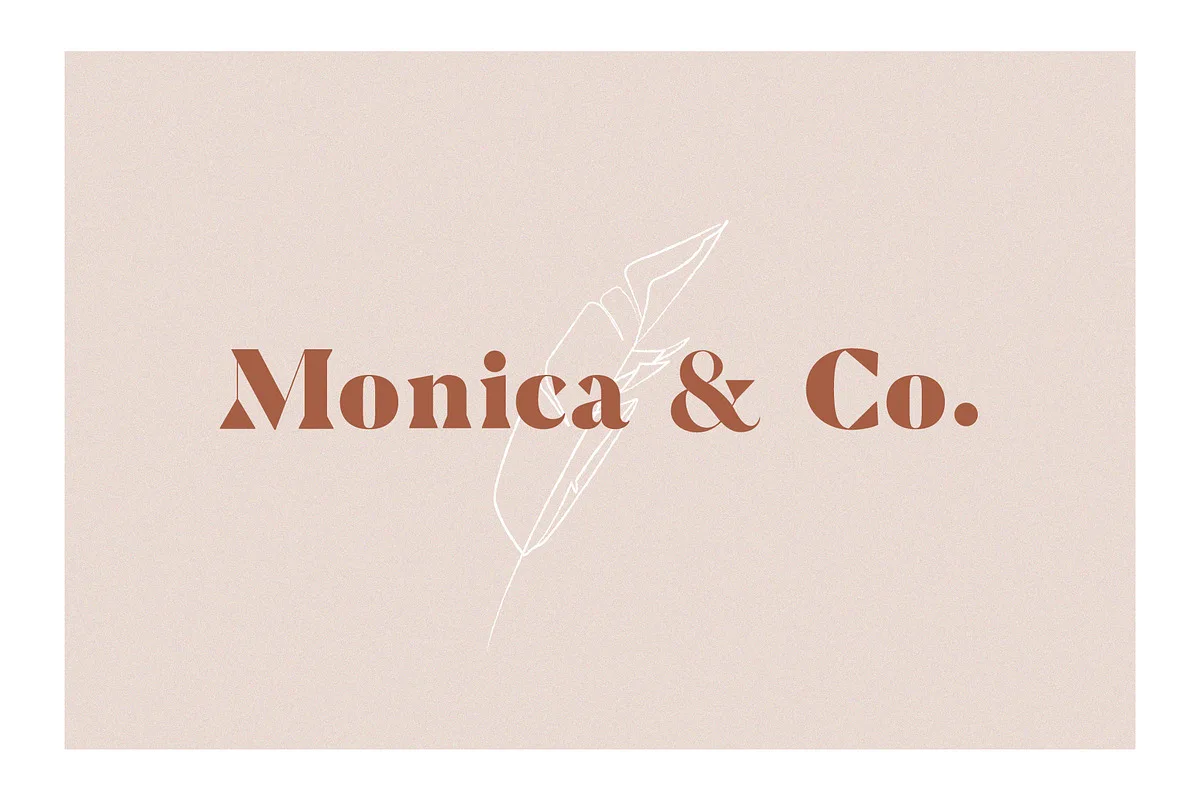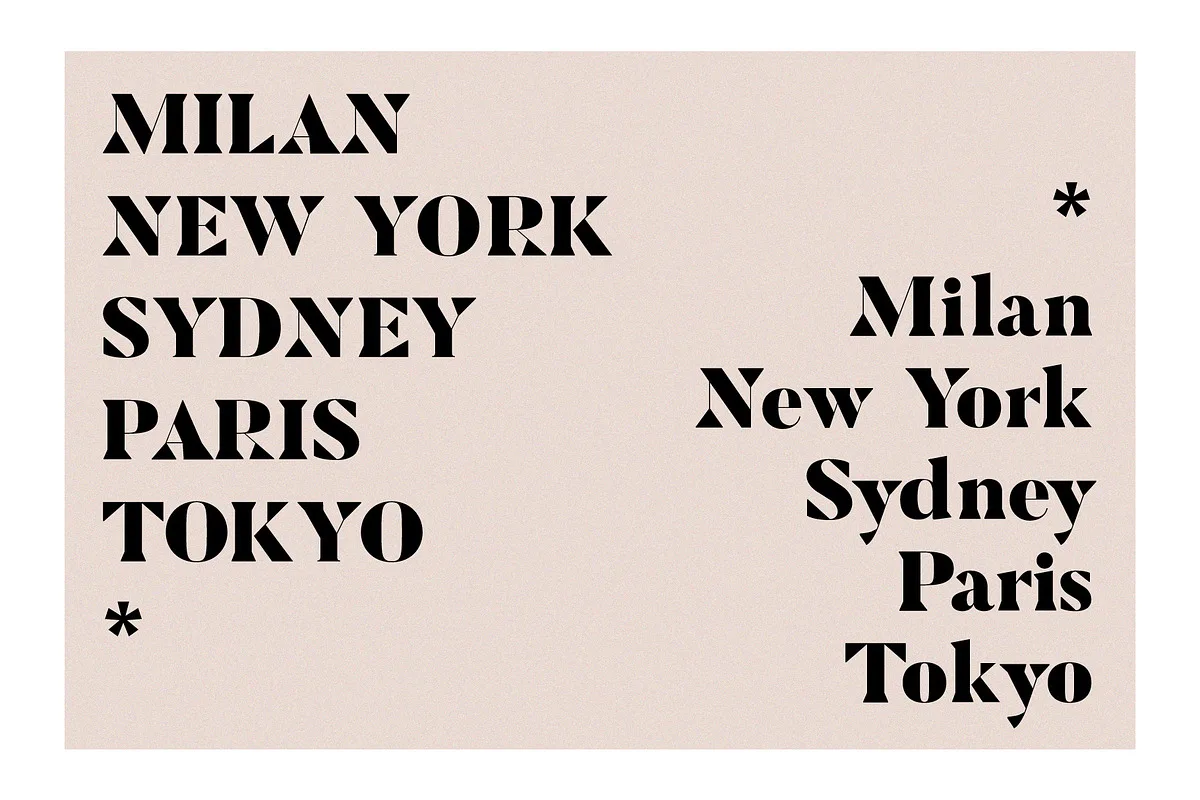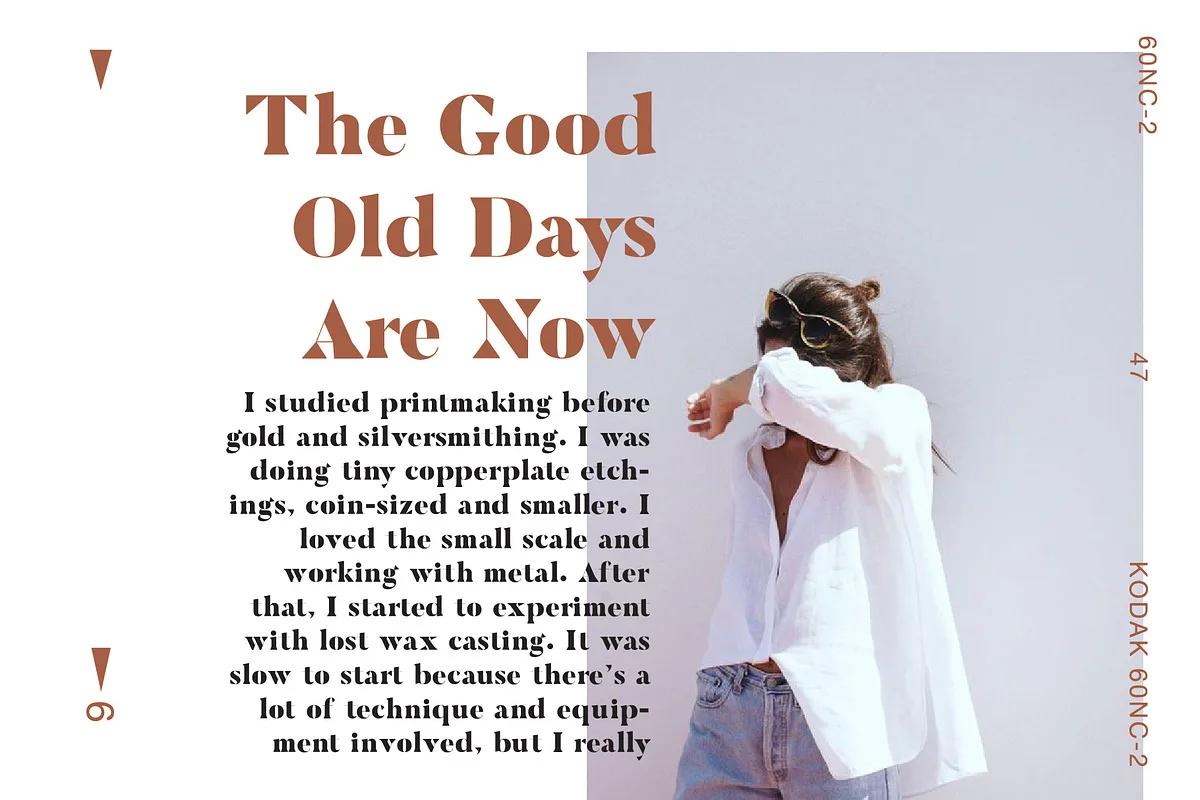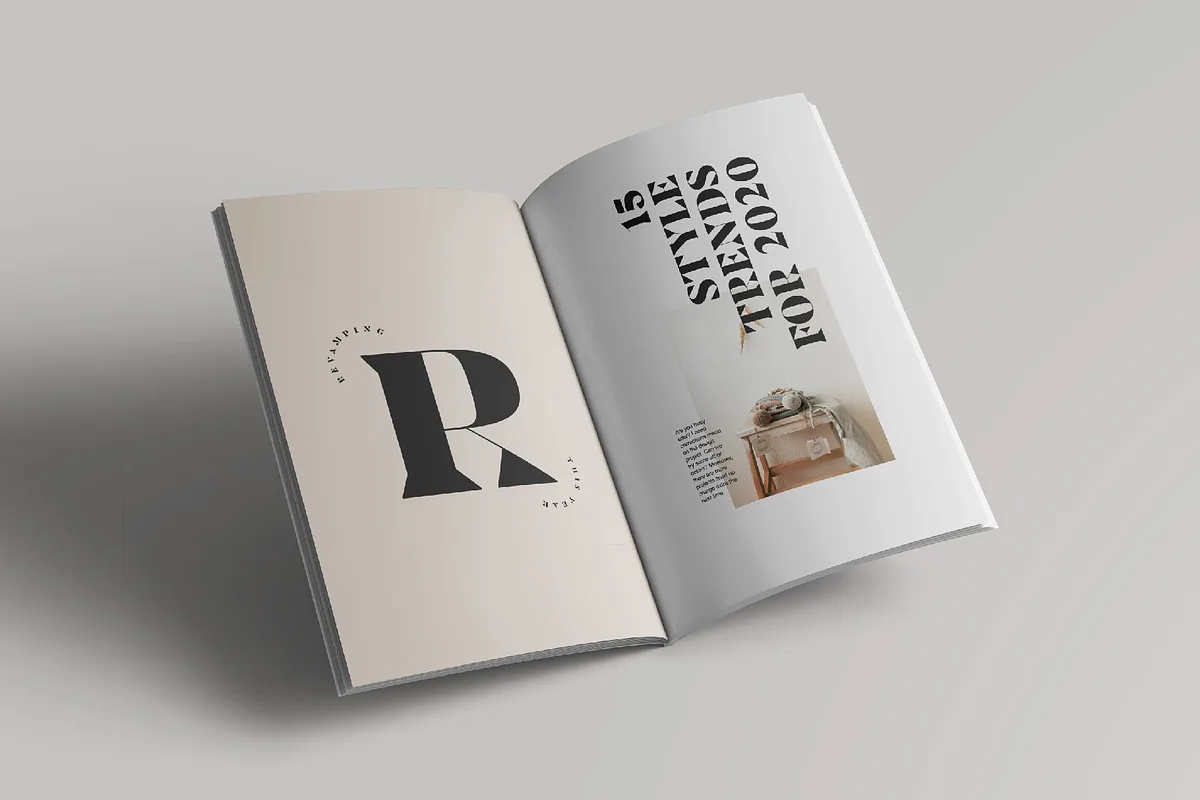
Rockwell Font is a wedge serif font that is sure to stand out! A little bit retro and a bit modern, it is great for logos, editorial or web design. The unique sharp serifs mixed with thin strokes give off a bold mid century architectural vibe. Ideal for: Branding, Posters, Headlines, Web Design.